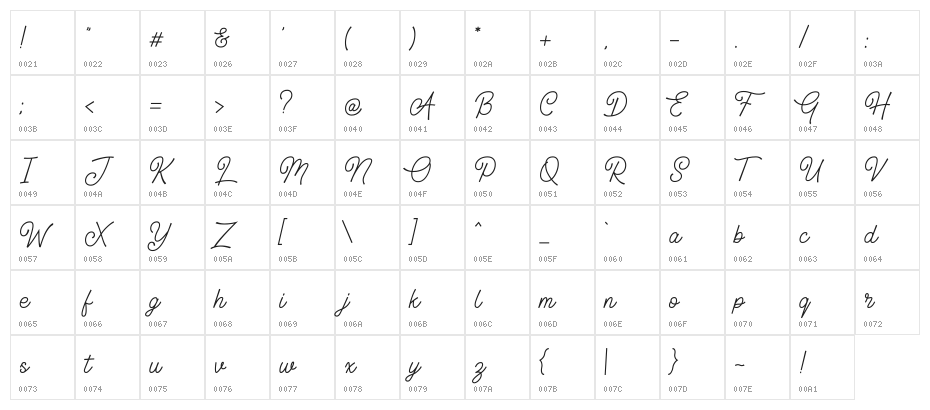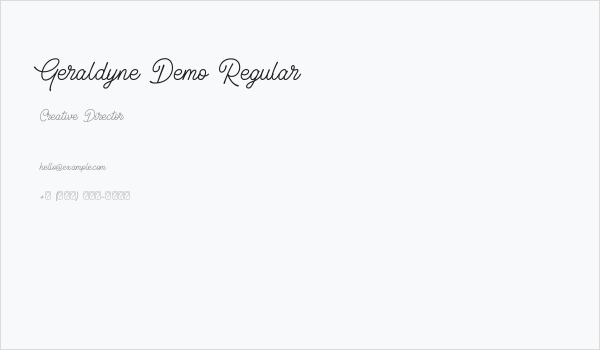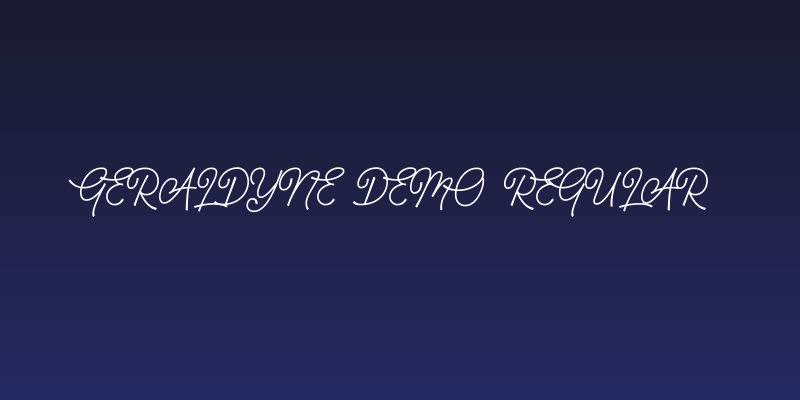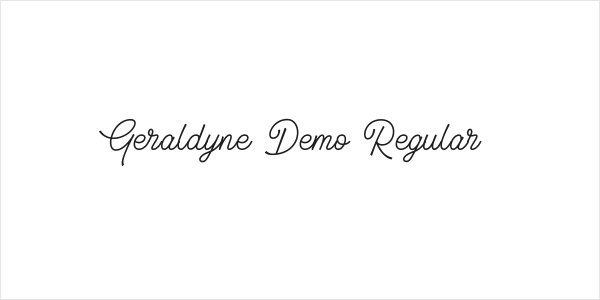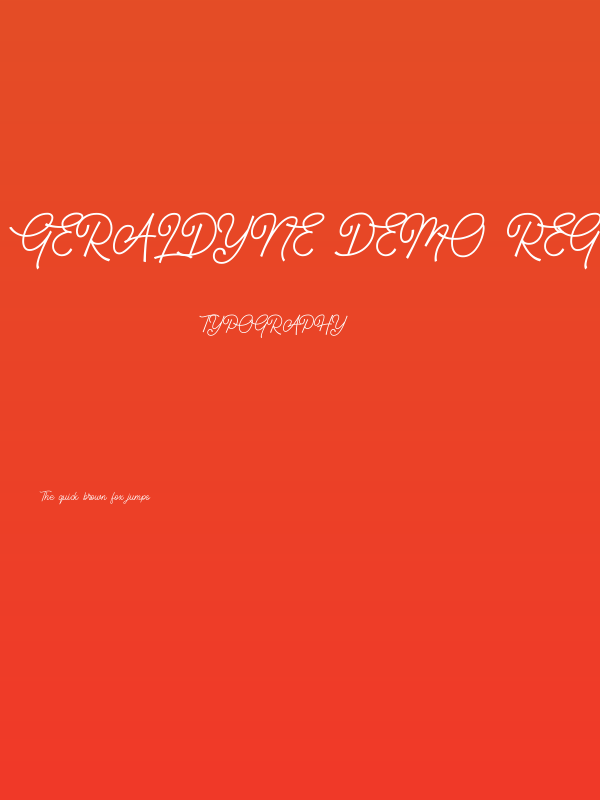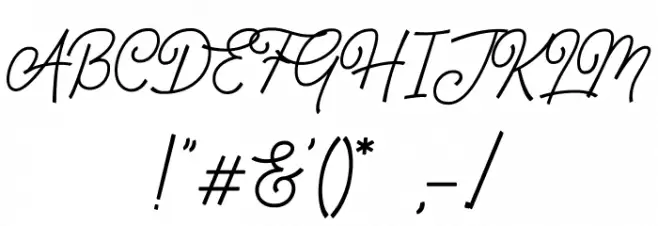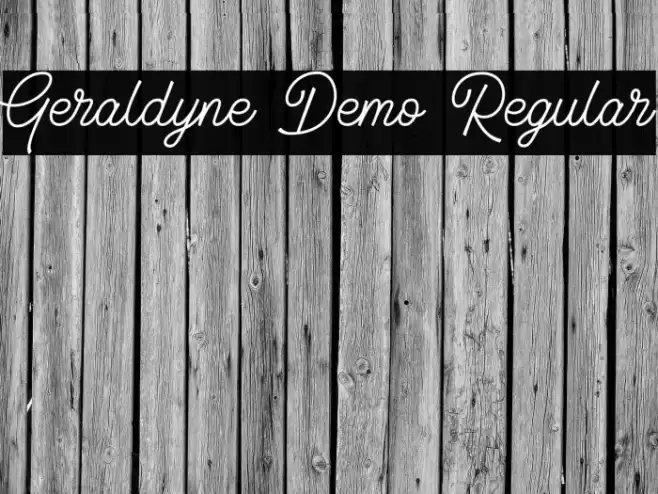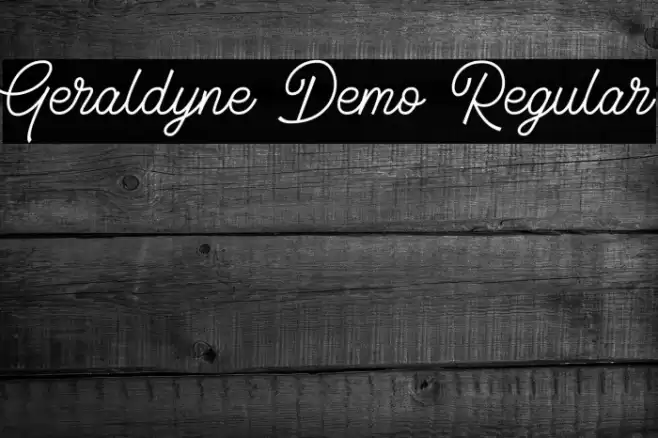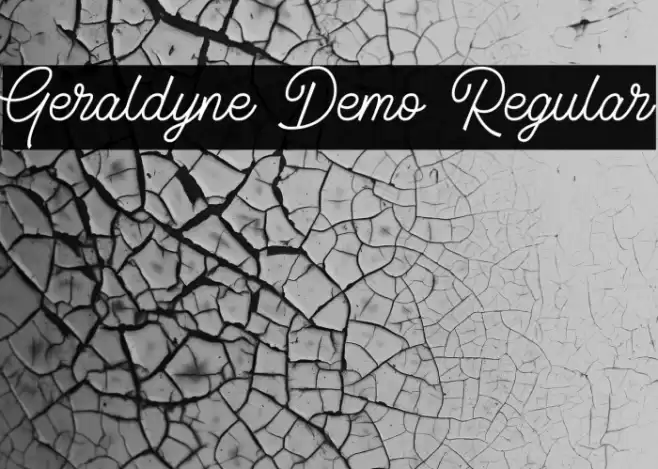
Geraldyne Demo Regular Font
Geraldyne Demo Regular Description
This elegant script font features a flowing, cursive style with smooth, connected strokes that evoke a sense of sophistication and grace. The uppercase letters are slightly larger and more ornate, with sweeping curves and loops that add a decorative touch. The lowercase letters maintain a consistent flow, enhancing readability while preserving the font's artistic flair. The numerals and special characters are designed to complement the overall style, ensuring a cohesive look across all text elements. This font is ideal for projects that require a personal, handwritten feel, such as invitations, greeting cards, and branding materials.
| Overall Style | Elegant, Decorative |
| Use Case | Invitations, Greeting cards, Branding |
| Proposed Projects | Ideal for wedding invitations, greeting cards, personal branding, and elegant signage. |